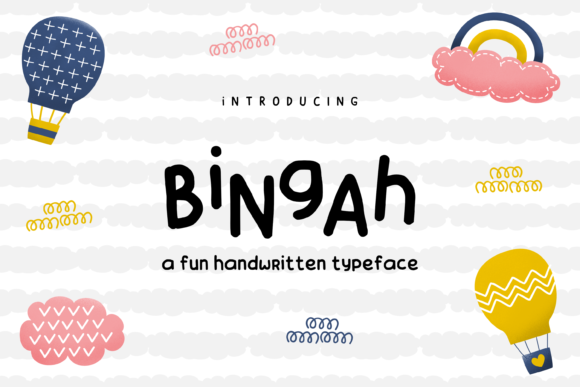
The Quest for the Perfect Font: Discovering Bingah
I still remember the frustration of working on a children’s book design project, searching for a font that could bring my illustrations to life. My client wanted a playful, yet endearing feel that would appeal to their young audience. After hours of browsing through font libraries, I stumbled upon Bingah Font – a cute and chubby handwritten font that instantly won my heart. In this article, I’ll share my experience with Bingah, its features, and how to make the most of it in various design platforms.
An Honest Review of Bingah Font
What I Love About Bingah ✨
- ✅ Cute and playful vibe: Bingah’s rounded edges and chubby letterforms make it perfect for designs that require a lovable touch.
- ✅ Highly legible: Despite its playful nature, Bingah remains clear and easy to read, even at smaller font sizes.
- ✅ Versatile: This font is suitable for various design projects, from cartoon-related designs to children’s games and more.
- ⚠️ Limited use in formal designs: Bingah’s playful nature makes it less suitable for formal or professional designs, such as business reports or corporate branding.
- ⚠️ Some letters may require adjustment: Depending on the design, some letters may need adjustment to ensure proper spacing and alignment.
The Designer Inspiration Behind Bingah
Bingah Font was created with the intention of bringing a playful, yet endearing feel to design projects. Its designer aimed to craft a font that would be both fun and legible, making it perfect for a wide range of creative applications. Whether you’re working on a children’s book, a cartoon, or a craft project, Bingah Font is sure to bring a smile to your audience’s faces.
Q: What type of designs is Bingah Font best suited for?
A: Bingah Font is perfect for designs that require a playful, yet endearing feel, such as children’s book illustrations, cartoon-related designs, and craft projects.